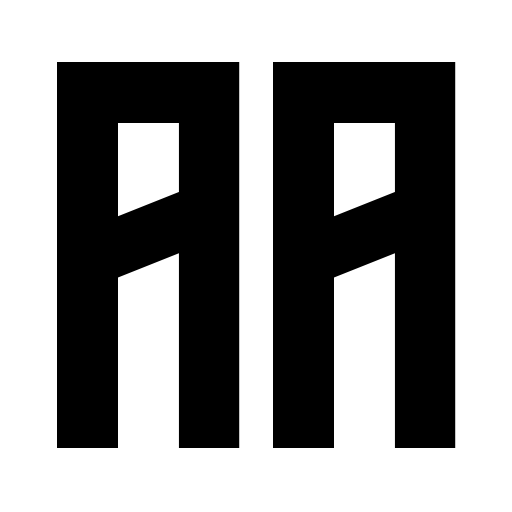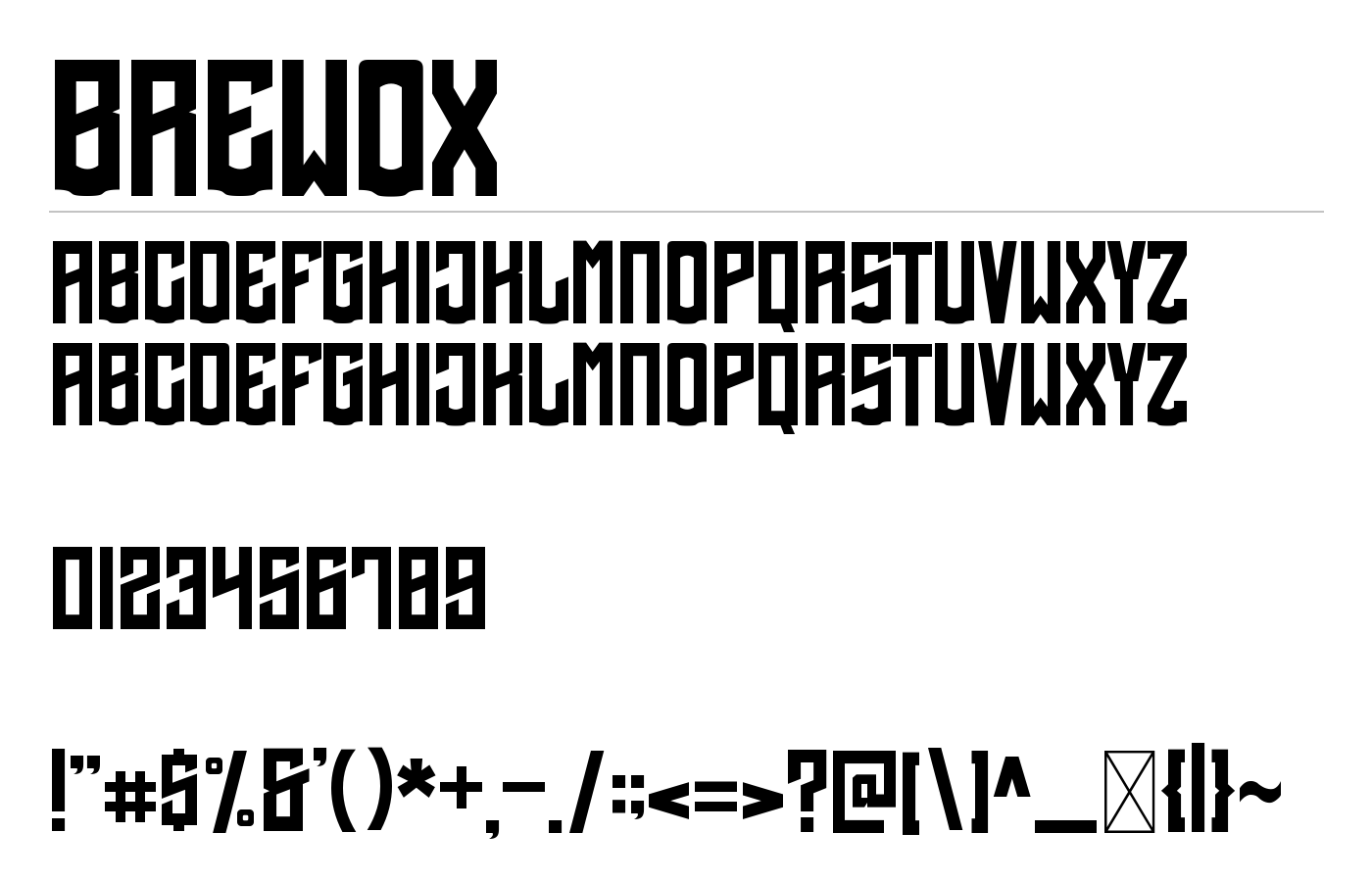
Brewox is a bold, condensed sans serif font with sharp, geometric edges and strong vertical lines, giving it a modern yet rigid feel. Its distinct blocky letterforms convey a sense of strength and urban style, making it ideal for headlines, logos, and packaging that seek a bold, industrial look. This font works well where a striking and memorable impression is needed, especially in edgy or contemporary design projects.
Brewox Font
About Brewox Font
| Font family | Brewox Font |
| Designer | Christmas Kalingga Abed Nego |